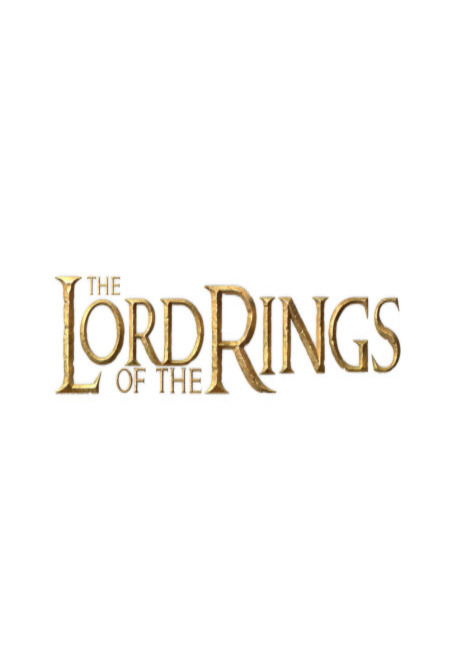
Lord Of The Rings Font
The Lord of the rings is a trilogy of epic fantasy adventure films directed by Peter Jackson, based on the novel Lord of the rings by British author J. R. R. Tolkien.(wikipedia) The films are subtitled The Fellowship of the Ring, The Two Towers, and The Return of the King. The font is available in all caps, licenced as free for personal use and is free to download. Click the above link to download Lord of the rings font.